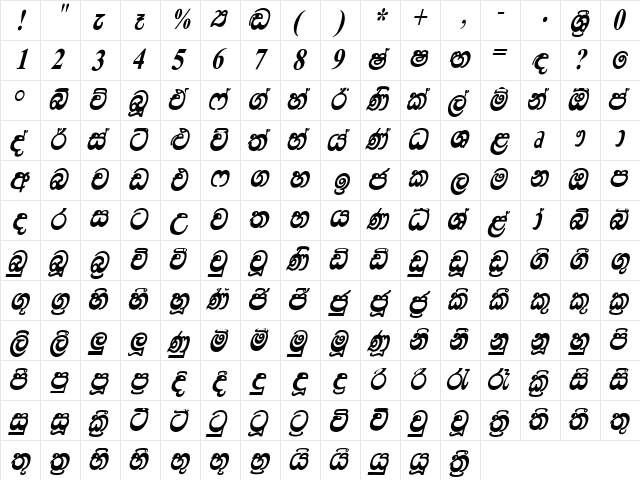
Lankatilaka Regular
Design Context for Lankatilaka Typeface
Lankatilaka takes a measured approach to typography — its balanced proportions and neutral character make it a reliable workhorse for both digital and print work.